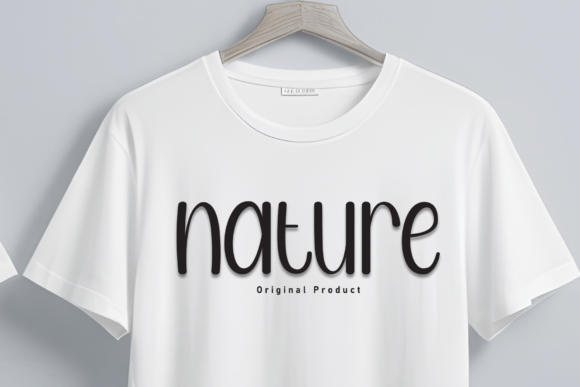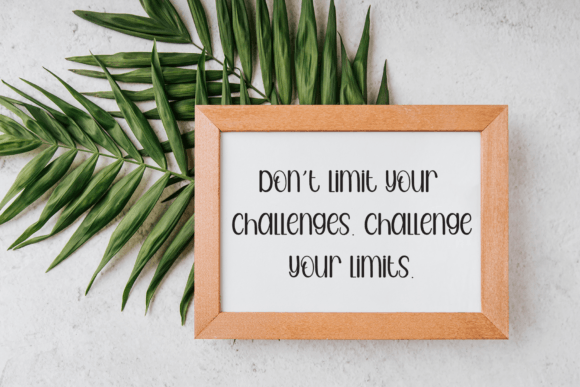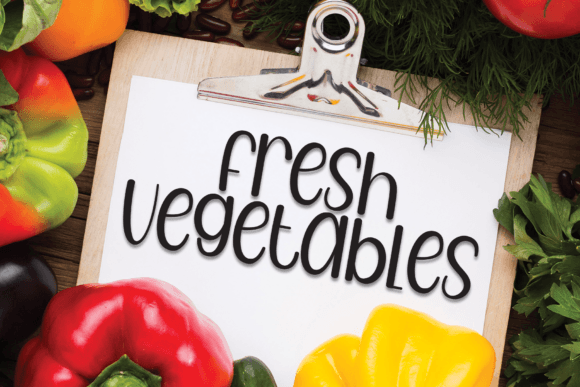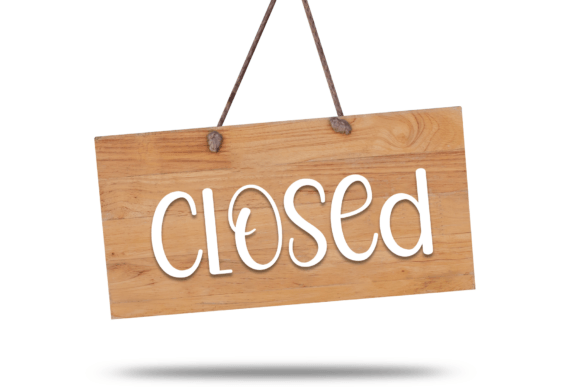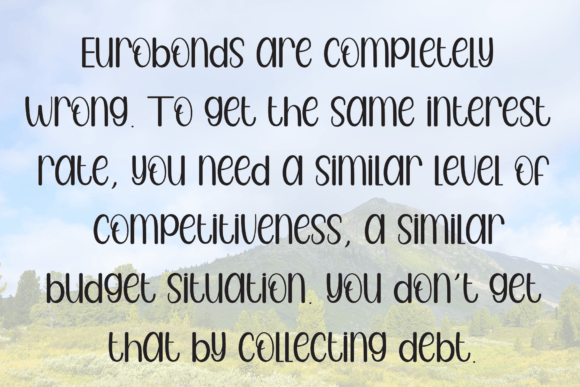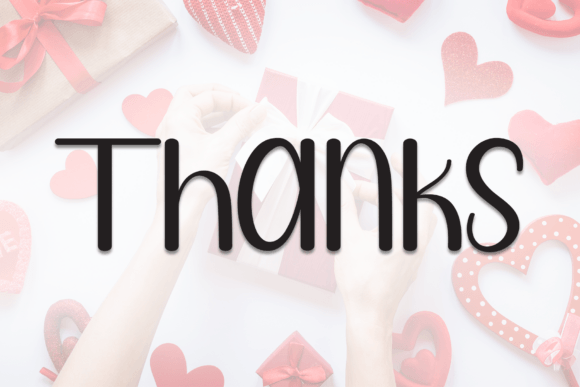
Happy Valentine Font: Add a Playful Touch to Your Designs
Are you looking for a font that can bring a playful yet approachable vibe to your design projects? Look no further than the Happy Valentine Font! This charming handwritten display font is perfect for designers and crafters who want to add a touch of sweetness and friendliness to their work. In this article, we’ll explore the features and benefits of the Happy Valentine Font and how it can elevate your designs to the next level.
What is Happy Valentine Font?
Happy Valentine Font is a delightful handwritten display font that exudes both sweetness and friendliness. Its playful and approachable vibe makes it perfect for crafting heartfelt wedding invitations, captivating cards, and other design projects that require a touch of whimsy. The font’s charming and cheerful visual appeal ensures that your designs will stand out from the crowd and leave a lasting impression on your audience.
Features of Happy Valentine Font
- Playful and approachable vibe: The Happy Valentine Font has a unique and charming personality that adds a touch of playfulness to any design project.
- Handwritten display font: The font’s handwritten style gives it a personal and human touch, making it perfect for designs that require a personal and emotional connection.
- Sweet and friendly: The font’s sweet and friendly tone makes it perfect for crafting heartfelt wedding invitations, cards, and other design projects that require a touch of warmth and affection.
- Whimsical touch: The Happy Valentine Font adds a delightfully whimsical touch to any design project, ensuring a cheerful and captivating visual appeal.
Benefits of Using Happy Valentine Font
Using the Happy Valentine Font in your design projects offers several benefits, including:
- Emotional connection: The font’s playful and approachable vibe helps create an emotional connection with your audience, making your designs more relatable and engaging.
- Unique visual appeal: The font’s charming and cheerful visual appeal ensures that your designs will stand out from the crowd and leave a lasting impression on your audience.
- Versatility: The Happy Valentine Font is perfect for a wide range of design projects, including wedding invitations, cards, posters, and more.
How to Use Happy Valentine Font
Using the Happy Valentine Font in your design projects is easy! Here are a few tips to get you started:
- Pair it with other fonts: Pair the Happy Valentine Font with other fonts to create a unique and visually appealing combination.
- Use it for headings: Use the font for headings and titles to add a touch of playfulness and whimsy to your designs.
- Experiment with colors: Experiment with different colors and textures to add depth and interest to your designs.
Design Ideas Using Happy Valentine Font
The Happy Valentine Font is perfect for a wide range of design projects, including:
- Wedding invitations: Use the font to create beautiful and unique wedding invitations that set the tone for the big day.
- Valentine’s Day cards: Use the font to create sweet and sentimental Valentine’s Day cards that will make your loved ones feel special.
- Posters and flyers: Use the font to create eye-catching posters and flyers that will grab the attention of your audience.
In conclusion, the Happy Valentine Font is a charming and playful font that can add a touch of sweetness and friendliness to your design projects. Its unique and whimsical vibe makes it perfect for crafting heartfelt wedding invitations, captivating cards, and other design projects that require a personal and emotional connection. With its ease of use and versatility, the Happy Valentine Font is a must-have for designers and crafters who want to create visually appealing and engaging designs.